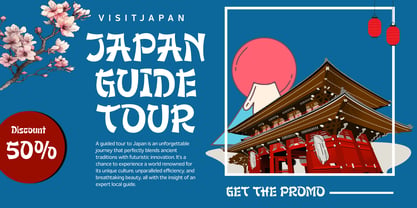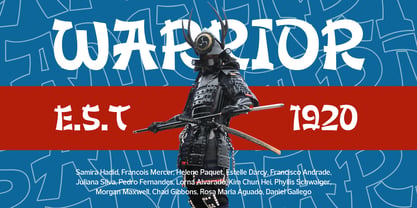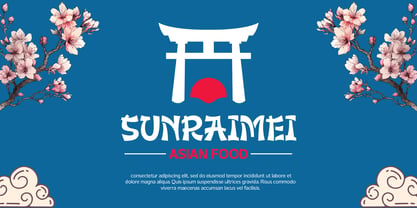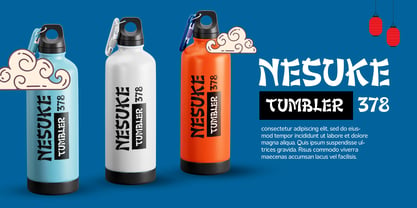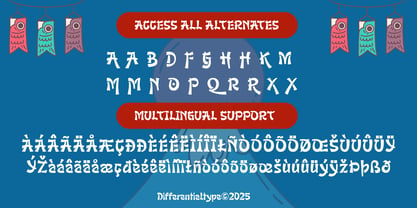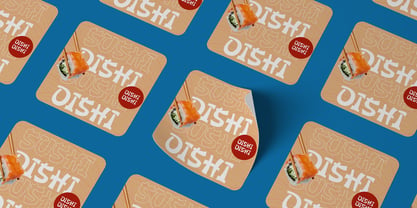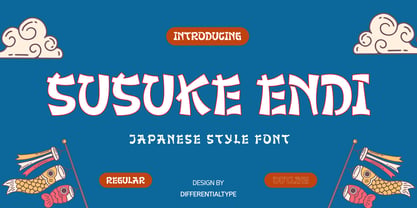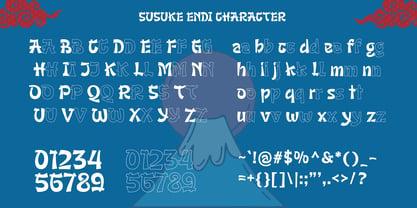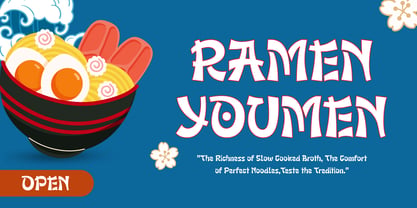
Susuke Endi
by Differentialtype
The Susuke Endi Font Family was designed by Sidik Sidik and published by Differentialtype. Susuke Endi contains 2 styles and family package options. More about this family
Unleash the spirit of the Orient with Susuke Endi, a captivating display font meticulously crafted to embody the vibrant aesthetic of Japan. This font is your essential toolkit for adding an authentic, dynamic flair to any project, making it the perfect choice for all Japanese-themed requirements, including powerful headlines, dynamic manga text, unique logo creation, and distinctive branding. Its design is inspired by the timeless elegance and modern dynamism found across Japanese visual culture, ensuring that your work—be it merchandise, packaging, or digital media—will immediately resonate with authenticity and style. To ensure maximum versatility and creative freedom, Susuke Endi comes equipped with two high-impact styles. The Regular style offers a bold and solid presence, perfect for strong readability and primary text applications. Complementing it is the Outline style, a striking and dynamic variation that is ideal for adding a modern, energetic edge, fantastic for overlays, minimalist designs, or highlighting key phrases. With both of these distinct styles at your fingertips, Susuke Endi allows you to bring the authentic flavor of Japan right to your design, ensuring your visual communication is both impactful and culturally rich.
Designers: Sidik Sidik
Foundry: Differentialtype